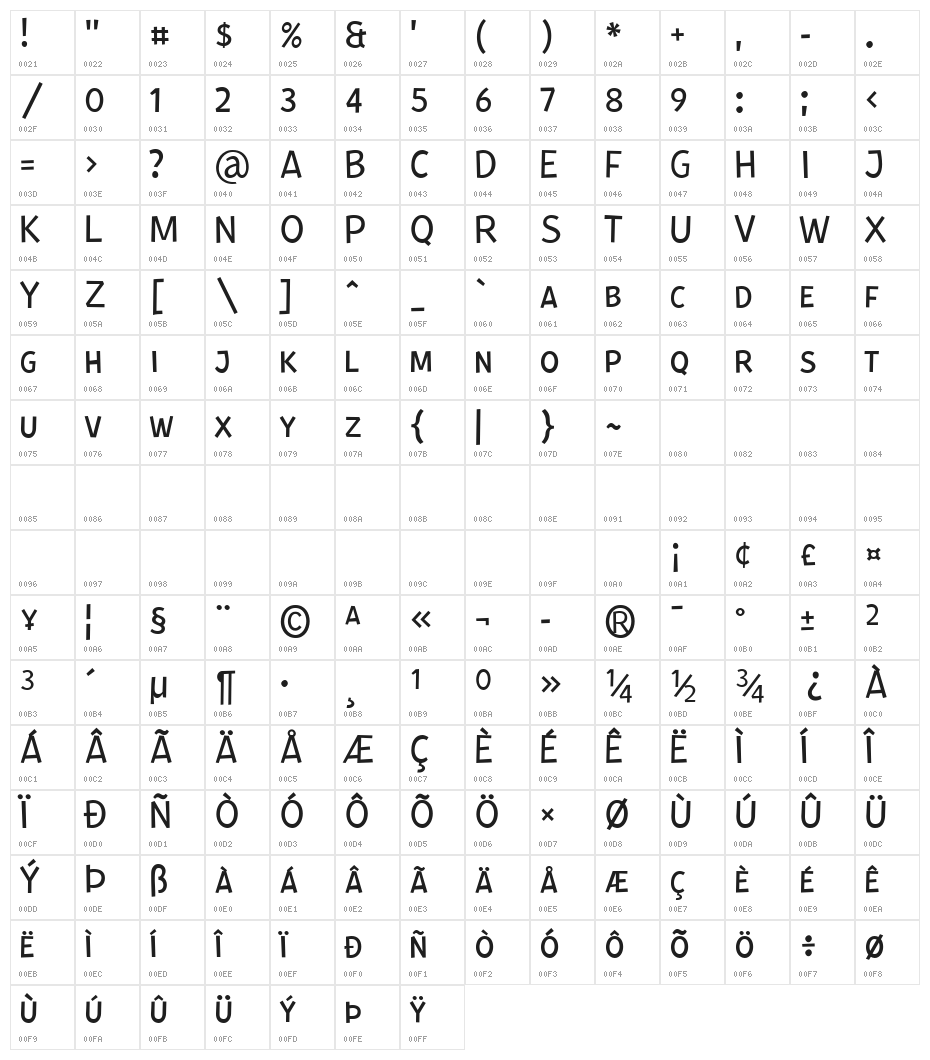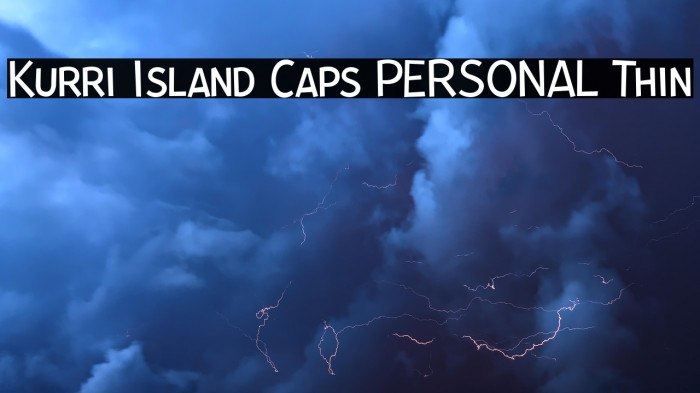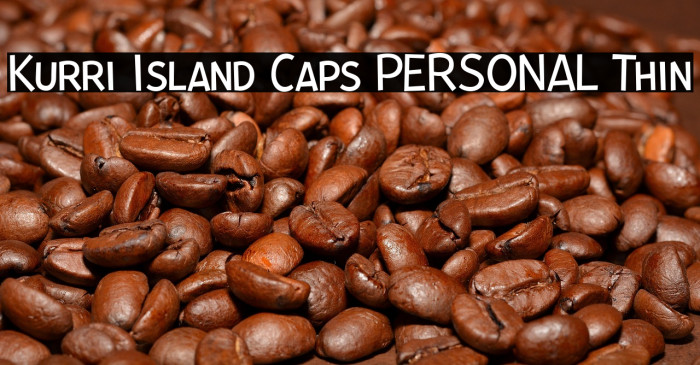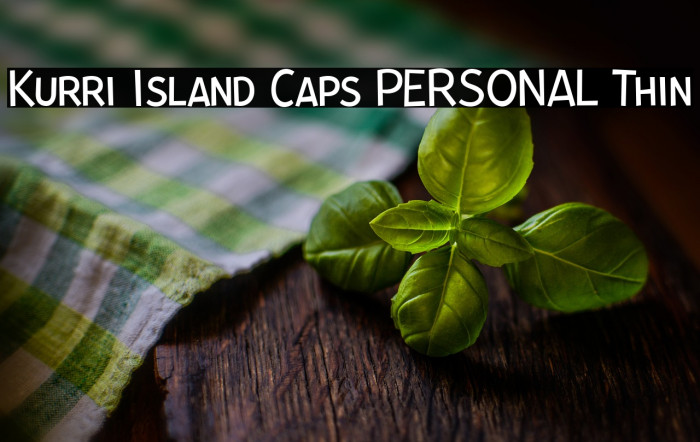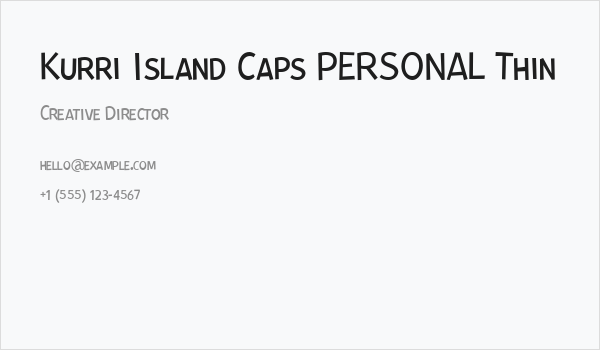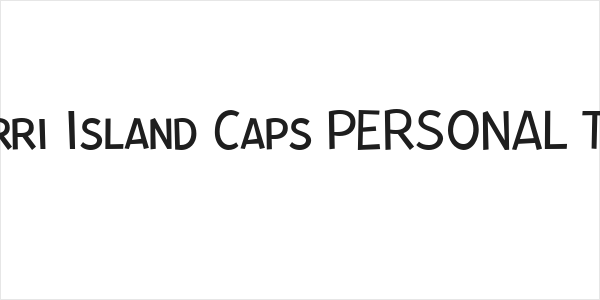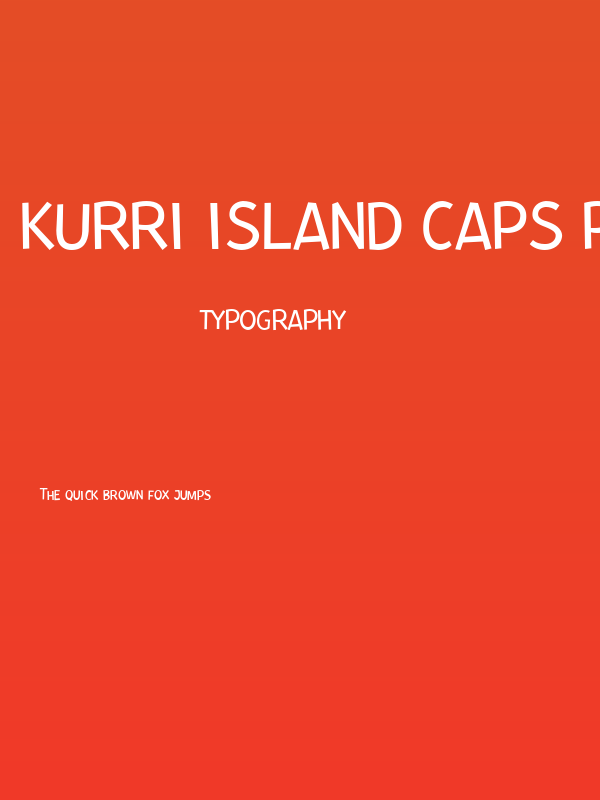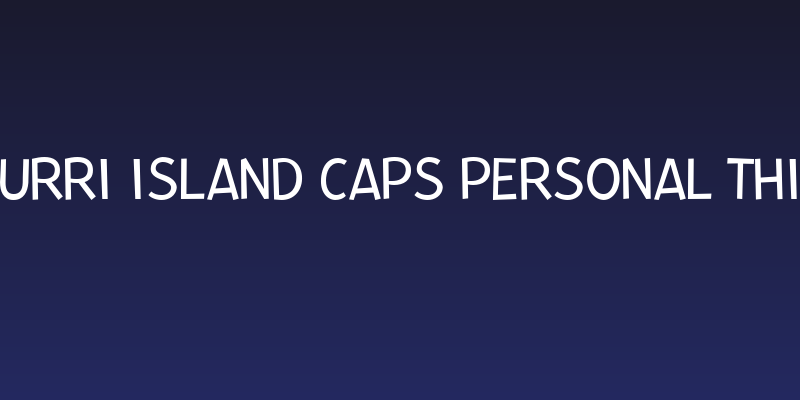
Kurri Island Caps PERSONAL Thin Font
Kurri Island Caps PERSONAL Thin Description
This font features a playful and casual style with a hand-drawn appearance. The characters are slightly irregular, giving it a whimsical and friendly feel. The uppercase letters are bold and prominent, while the lowercase letters maintain a consistent flow. Numbers are clear and easy to read, and the special characters add a touch of personality. The overall design is approachable and versatile, suitable for a variety of creative projects.
| Proposed Projects | Ideal for children's books, greeting cards, playful branding, and casual invitations. |